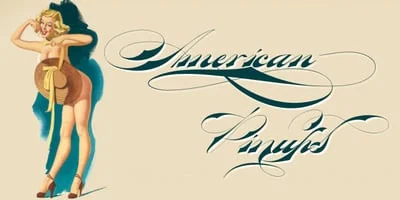
Bradstone-Parker Script
Bradstone-Parker Script Font
The Bradstone-Parker Script Font excels in various design applications including elegant wedding invitations, sophisticated luxury branding, premium stationery design, upscale boutique signage, formal certificate creation, distinguished business communications, refined packaging design, classical calligraphy projects, aristocratic event materials, and prestigious brand identities that demand handwritten elegance and timeless script sophistication.
What makes the Bradstone-Parker Script Font exciting is its exquisite interpretation of traditional English script calligraphy that combines the flowing elegance of formal penmanship with contemporary refinement and digital precision. This typeface captures the essence of distinguished handwriting through carefully crafted letterforms that suggest the fluid motion of an expert calligrapher's pen creating beautiful, legible script with aristocratic flair. The font's distinguished personality makes it perfect for luxury brands and formal occasions seeking to communicate refinement, exclusivity, and cultural sophistication through typography that honors the finest traditions of English calligraphic artistry.
The Bradstone-Parker Script Font family typically includes elegant weight variations with authentic calligraphic flourishes, featuring traditional ligatures, swash alternatives, and ornamental capitals that enhance the formal script aesthetic. These family options often include period-appropriate punctuation, classical connecting strokes, and decorative elements that maintain historical accuracy while providing designers with comprehensive tools for creating authentic formal calligraphy that honors traditional penmanship excellence.
Luxury brand designers and formal event professionals consistently choose Bradstone-Parker Script Font for projects requiring typography that conveys aristocratic elegance and calligraphic mastery. This typeface delivers exceptional performance in luxury marketing, formal communications, and prestigious branding where establishing cultural refinement and demonstrating appreciation for traditional craftsmanship is essential for target audience connection. The font's English heritage makes it particularly valuable for heritage brands and cultural institutions. Download Bradstone-Parker Script Font today to access this distinguished typeface that transforms communications with its calligraphic beauty and aristocratic sophistication, creating compelling experiences that honor the finest traditions of English script writing while maintaining contemporary elegance and professional excellence.